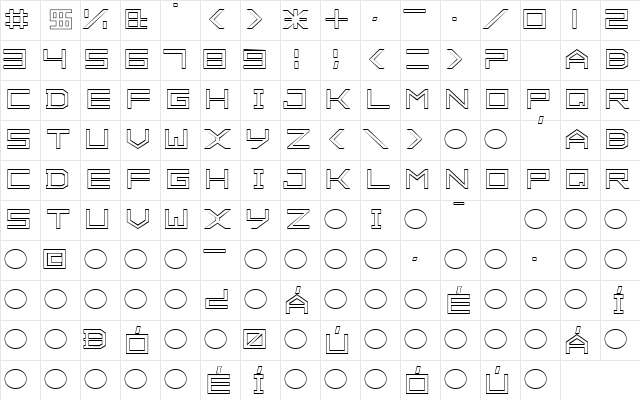
ALPHA OUTLINE
Style: OUTLINE
Design Context for ALPHA
ALPHA is built around its visual character rather than neutral utility - its distinctive forms are designed to make an impression at display sizes.
Font Pairing: Pair with a clean neutral sans-serif for body copy to let ALPHA's character lead without overwhelming the composition.
Pro Tip: Use ALPHA exclusively at display sizes - it was designed to be seen, not read at length. Let a neutral companion handle body copy.